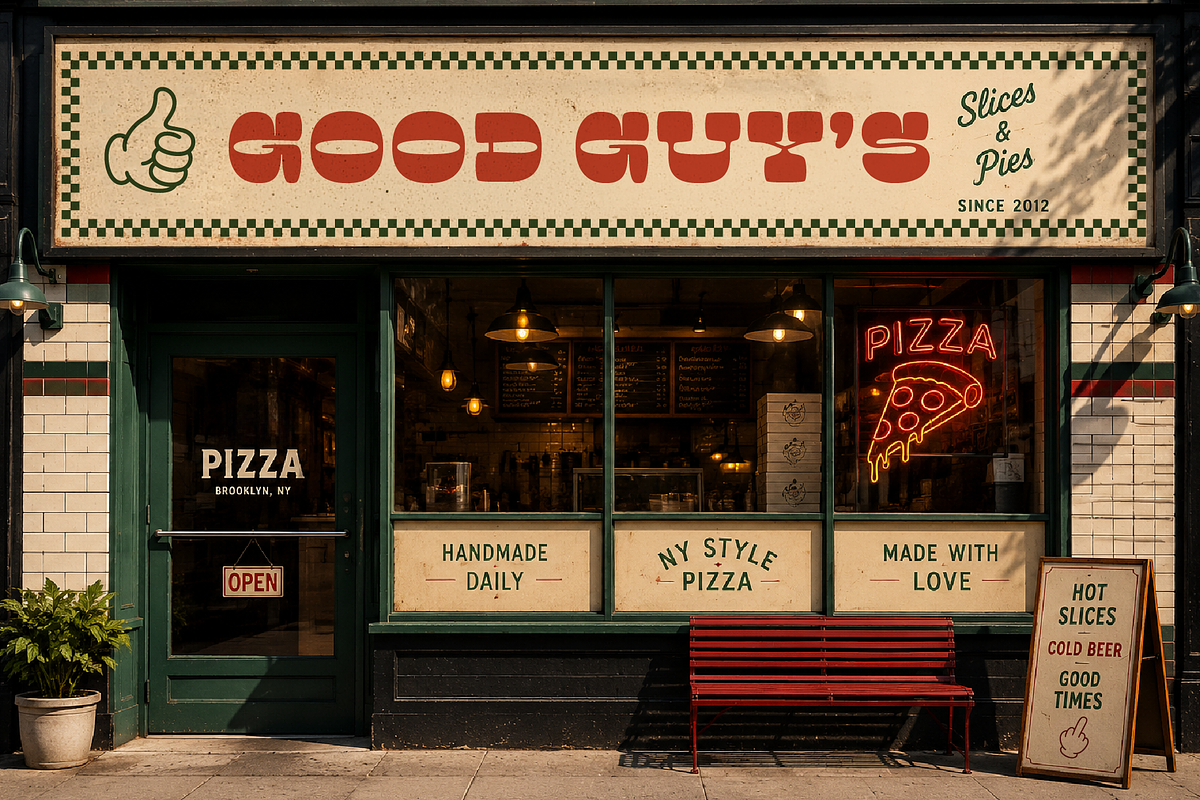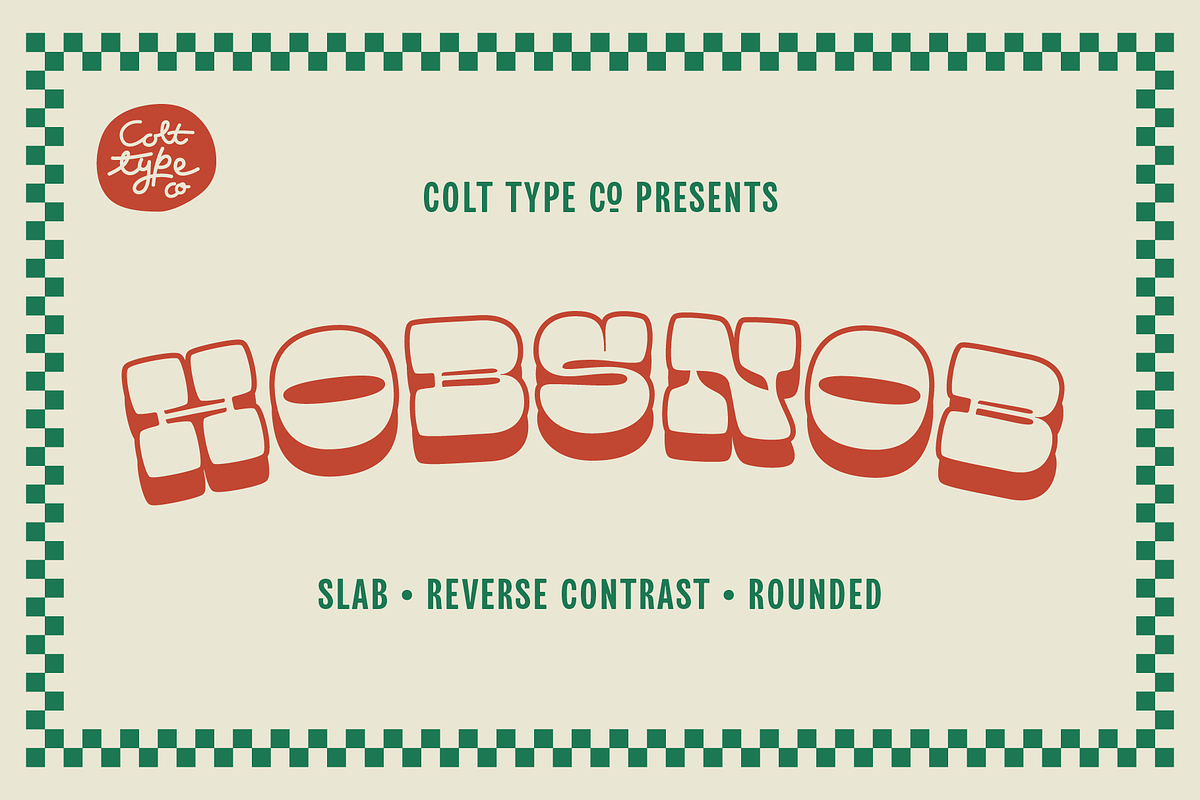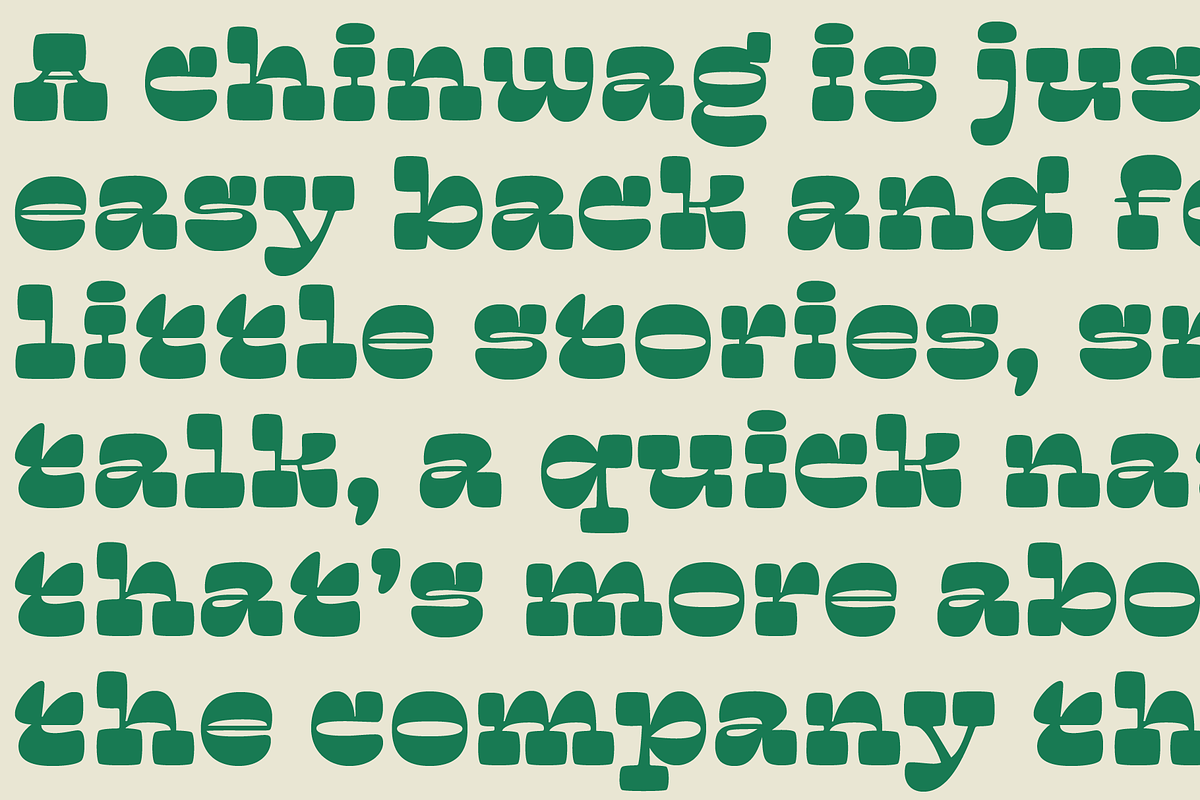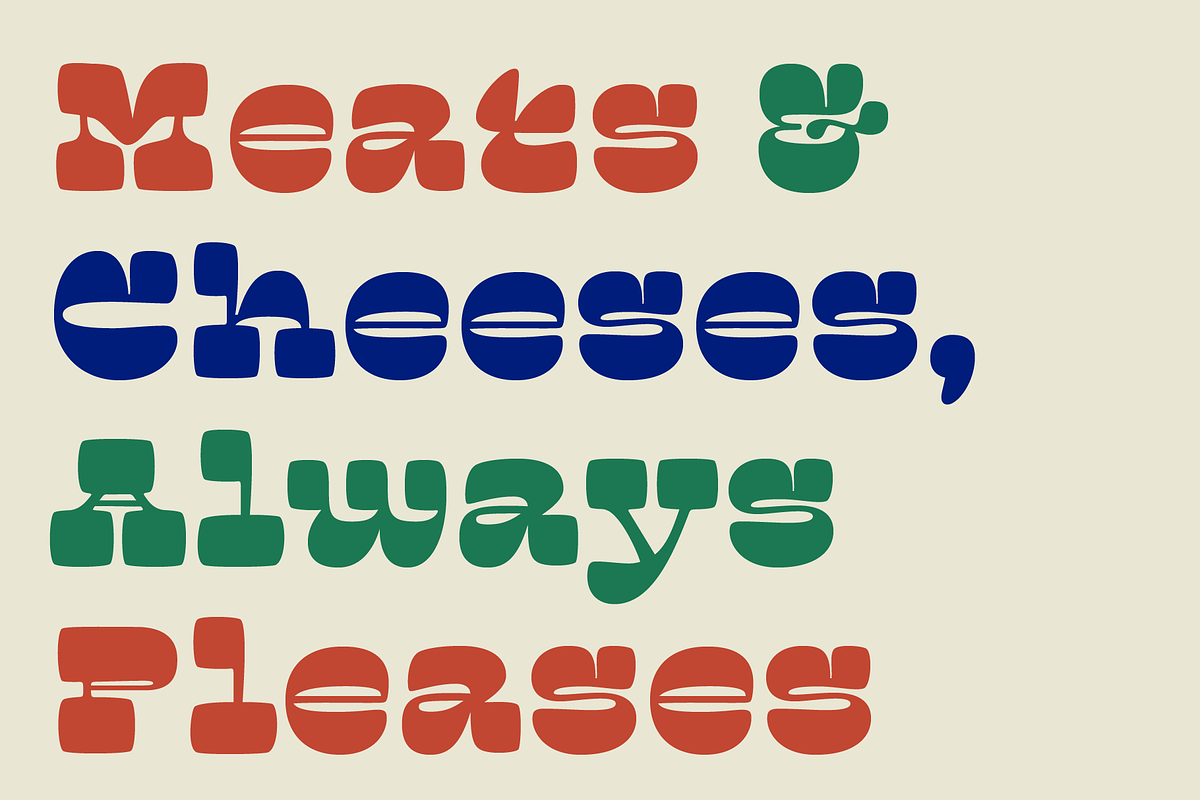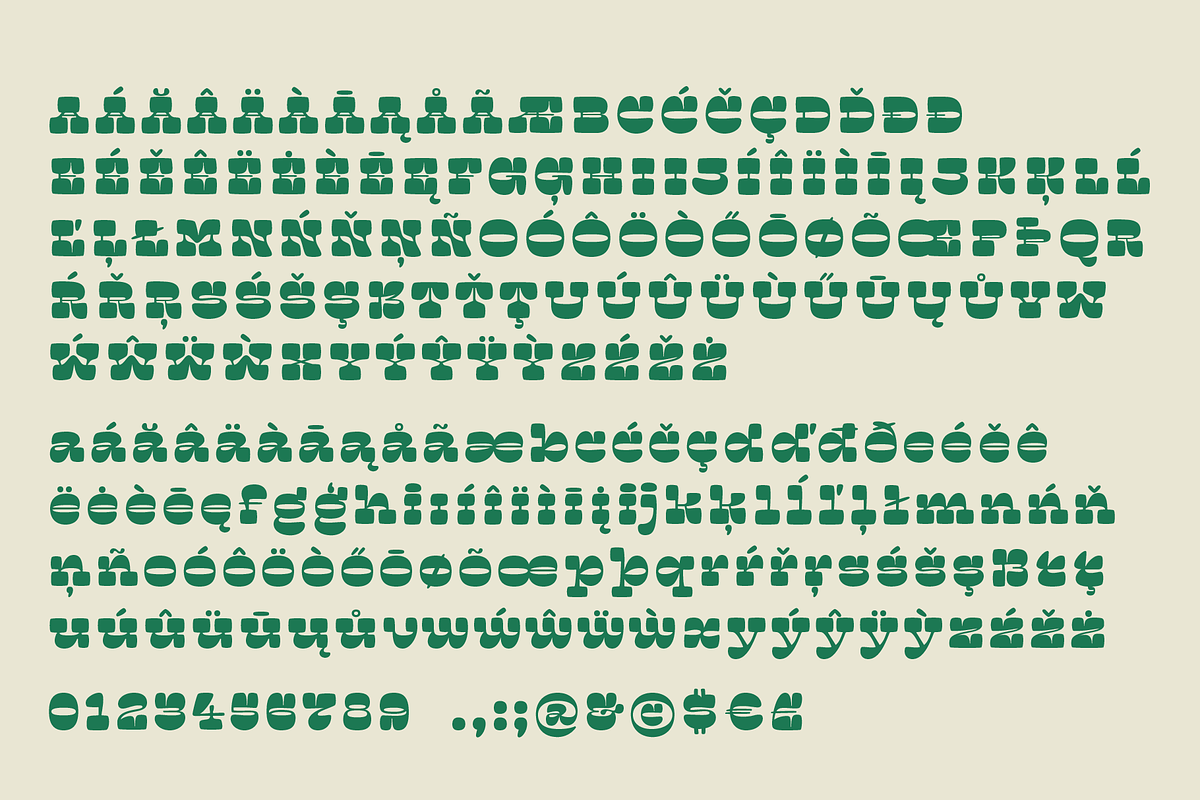
HobSnob Reverse Contrast Slab Serif
HobSnob is a bold, playful display font that features a charming reverse contrast, evoking a retro poster aesthetic. This vibrant, chunky slab serif is perfect for a variety of applications, including poster design, headlines, pamphlets, greeting cards, product packaging, book covers, logotypes, and album covers. By pushing the boundaries of the traditional rounded slab serif, HobSnob brings a sense of fun and creativity to your designs, making it an excellent choice for projects that require a lively and engaging typographic presence.
Inspired by vintage signage, novelty type, and mid-century print ephemera, HobSnob balances quirky character with strong visual impact. Its exaggerated reverse contrast and soft rounded corners give the typeface a warm, approachable feel while still commanding attention at larger sizes. The playful rhythm and unusual weight distribution create eye-catching word shapes that feel expressive, nostalgic, and full of personality. HobSnob works especially well in branding projects that lean into humour, charm, or retro-inspired styling, but it is equally effective when used sparingly as a statement display face. Packed with stylistic flair and bold confidence, it’s designed to bring energy, individuality, and a touch of eccentricity to modern creative work.